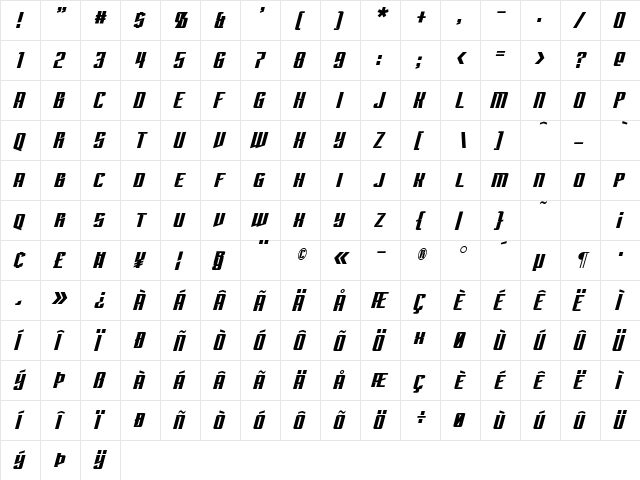
Subspace Italic
| Foundry | Pixel Sagas |
| Designer | Neale Davidson |
Design Context for Subspace Typeface
Subspace is a composed and adaptable typeface that performs quietly and consistently across a wide range of design contexts. The dynamic lean of this cut emphasises speed and emphasis in any layout.
Pro Tip: Use Subspace for emphasis, pull quotes, and subheadings where its slanted energy can add rhythm to the layout.